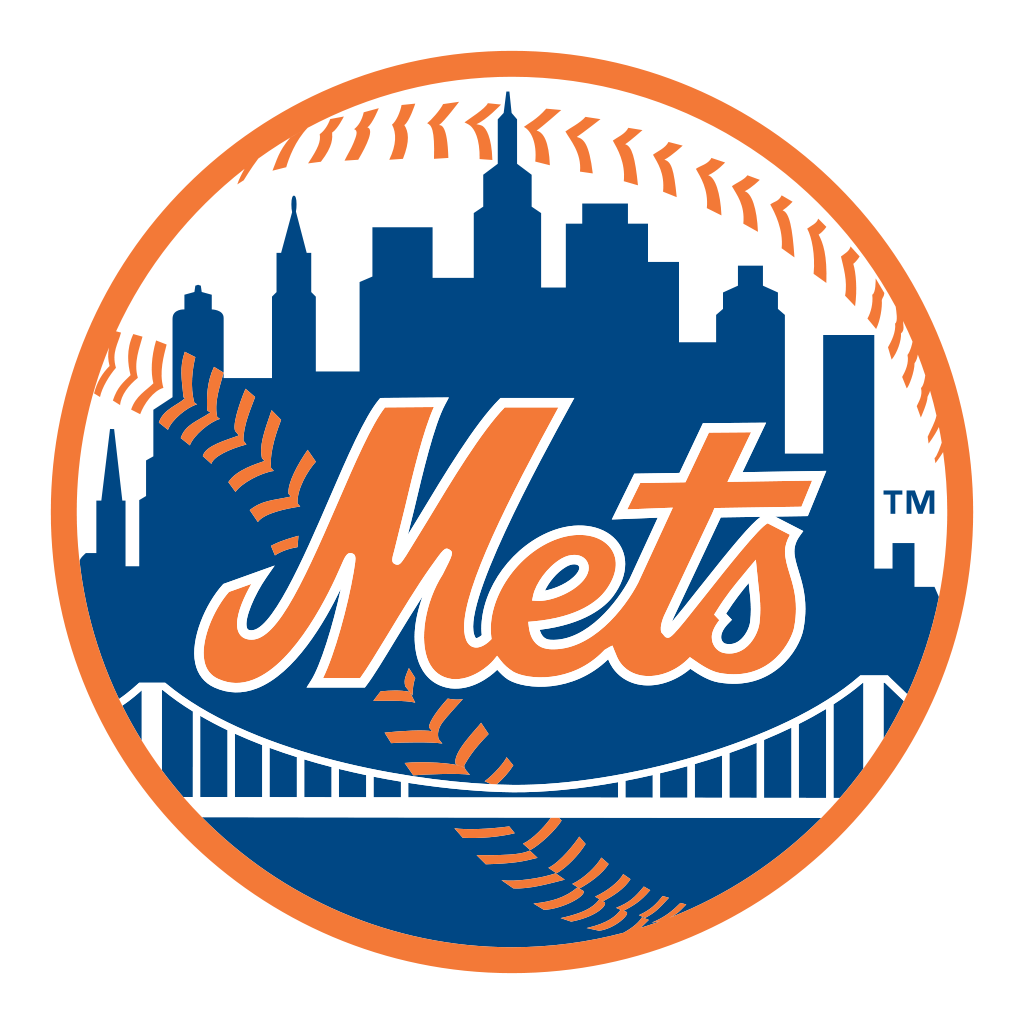
New York Mets Font
The New York Mets' logo, established in 1962, displays "Mets" above a bridge in front of the New York skyline on a baseball. The custom lettering resembles fonts like Spills Base from Comi Craft and Buffalo Nickel from Nick Curtis, which is available for free download from the Fonts Used Section.